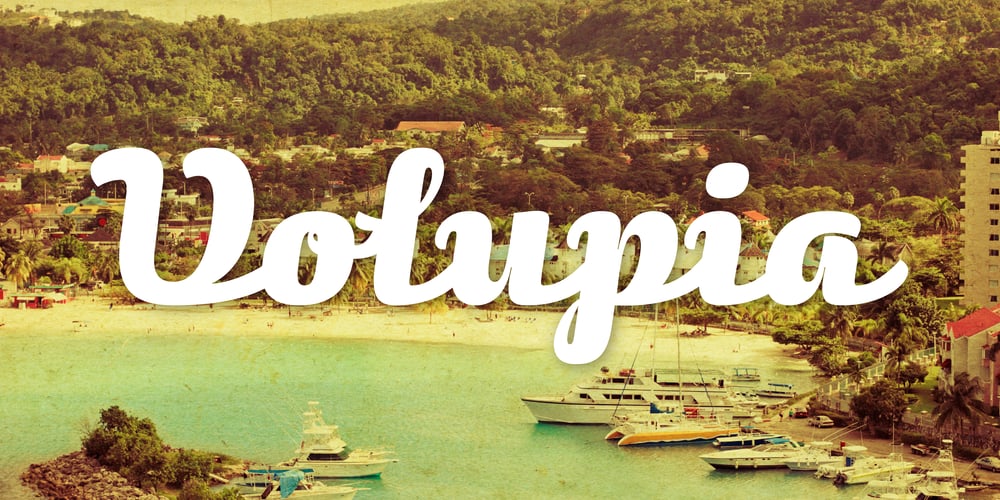
Volupia Font Family was designed by Dino dos Santos and published by Monotype. Volupia contains 1 styles and family package options. I started designing Volupia in 2004 and the main goal was to create a very casual font with some characteristics than we can find in some old commercial advertisements. After designing the basic character set I decided to go OpenType because it would allow me to go deep into the script, correcting the balance of the spaces and the kerning, along with the possibility to create Ligatures and Swashes. The result is a typeface ideal for use in very big sizes. Volupia includes Small Caps, Ligatures, Fractions, CE Characters, Swashes and Alternates. The ligatures and the ending swashes allow the user to make the text more calligraphic and personal.